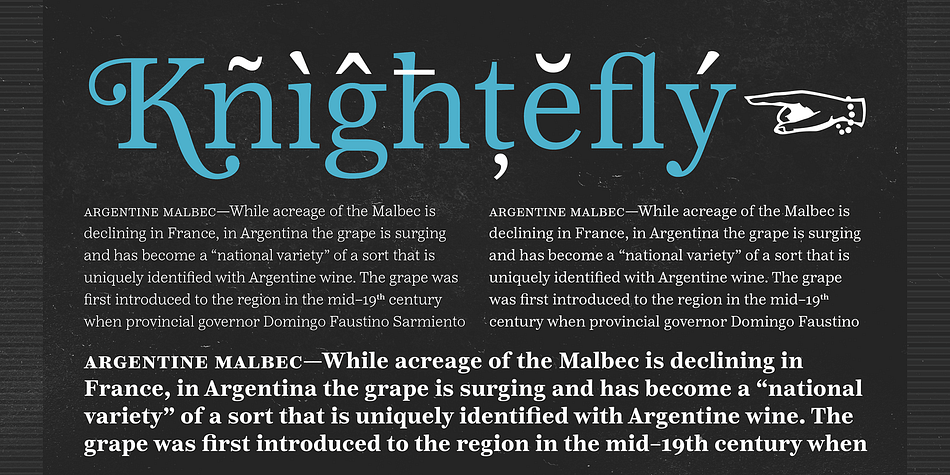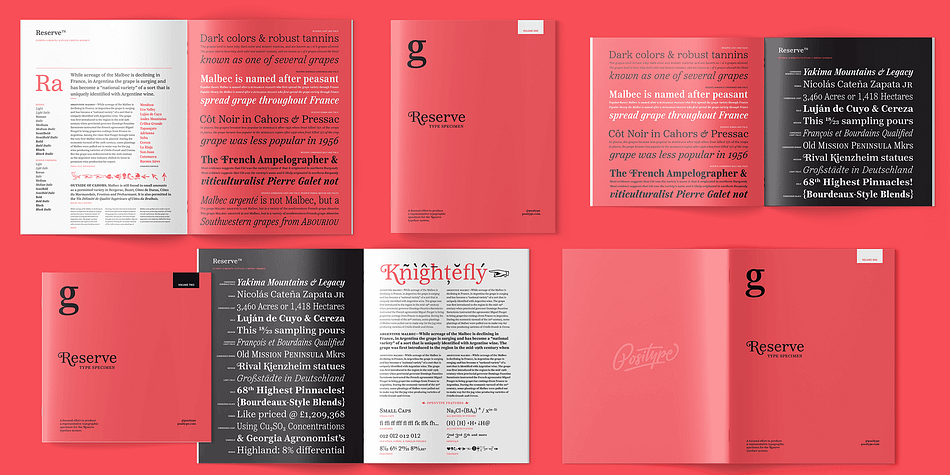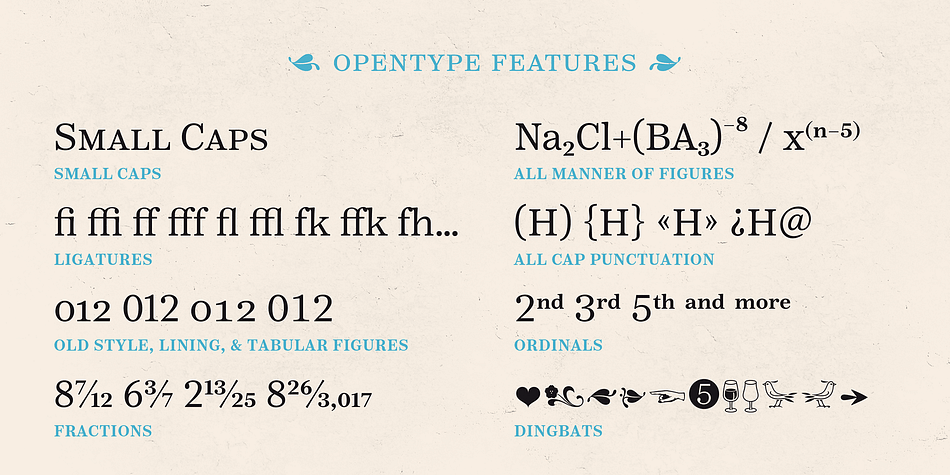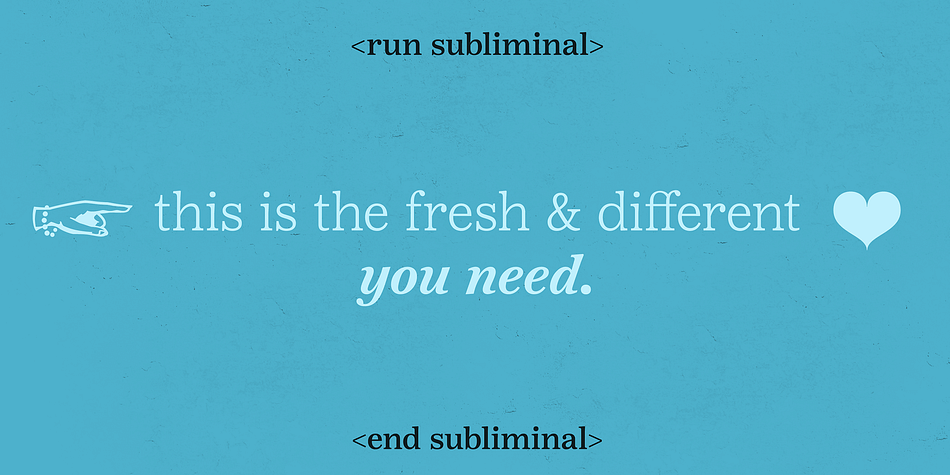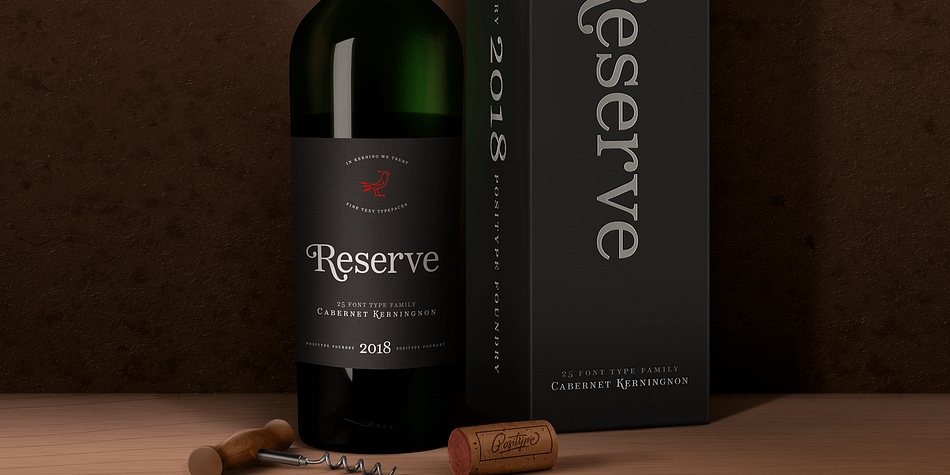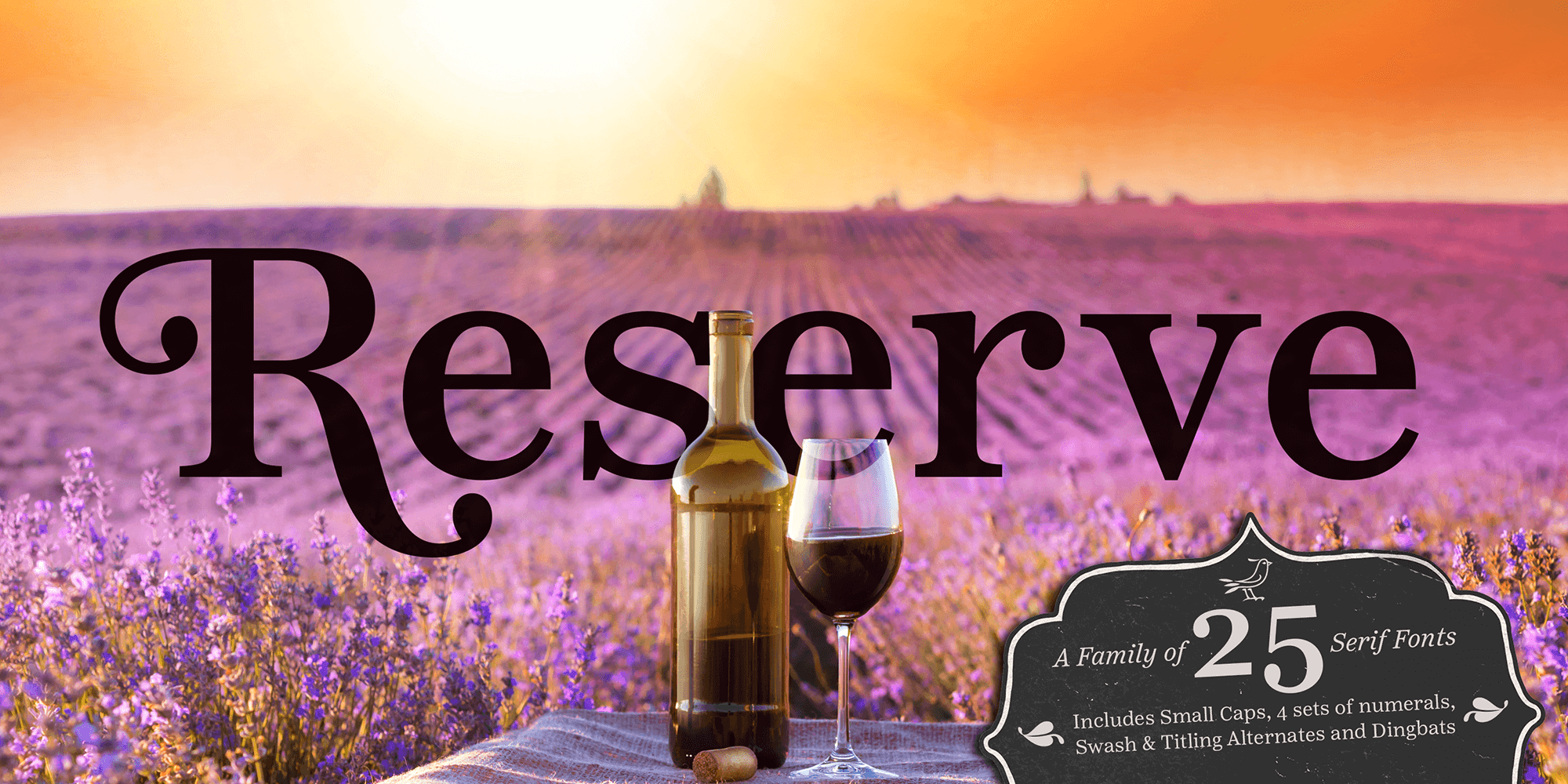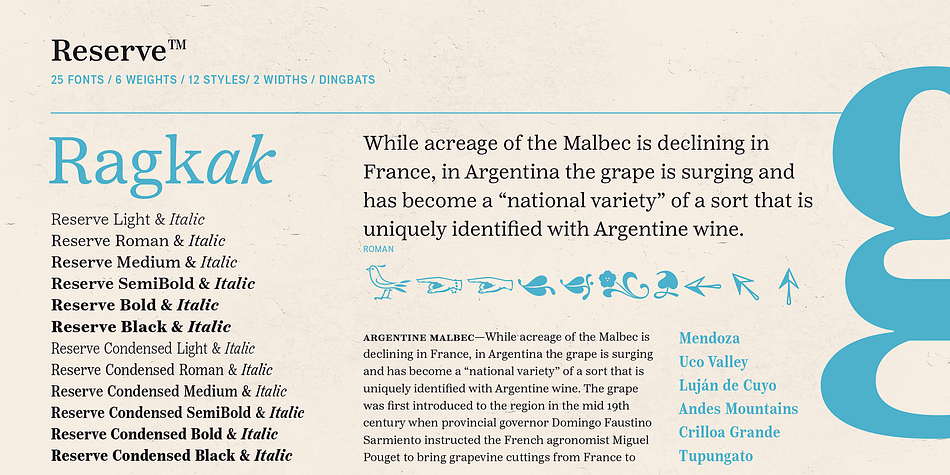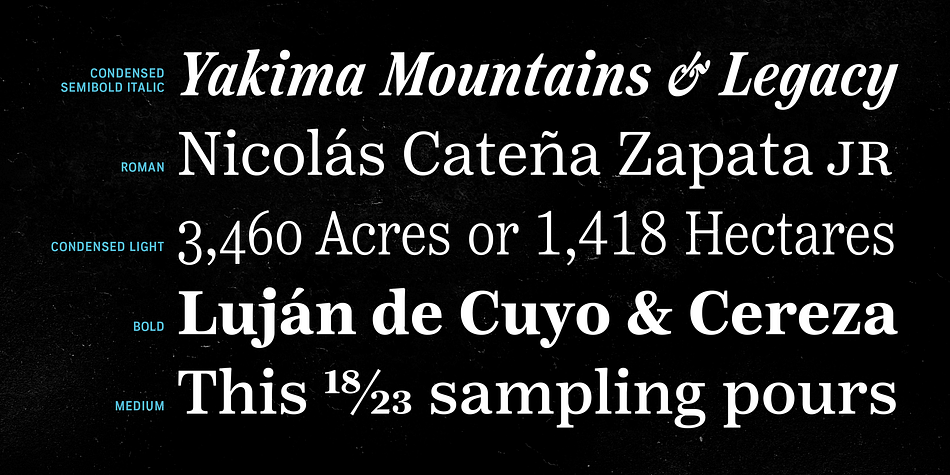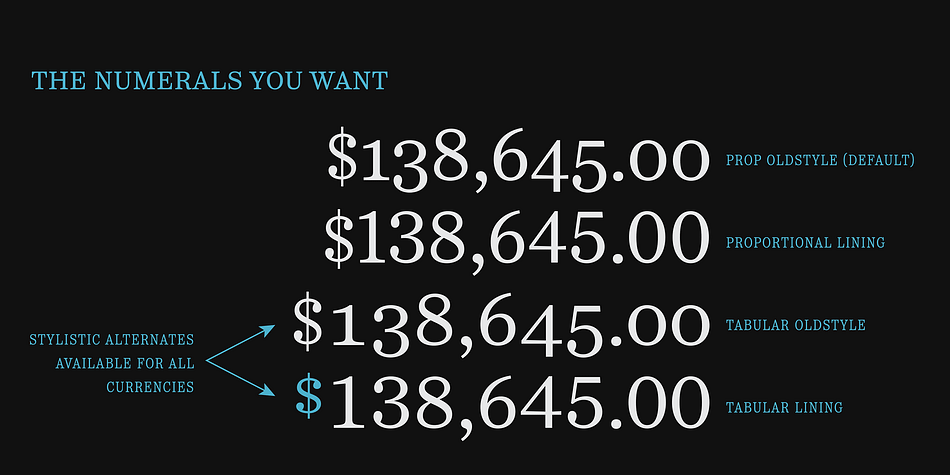
Designed by Neil Summerour, Reserve is a serif and dingbat font family. This typeface has twenty-five styles and was published by Positype.
First and foremost, Reserve is a companion typeface developed to complement the Scotch Suite of typefaces.
With a focus on producing simpler forms with less contrast, Reserve evolved into a fantastic serif typeface for long-form text settings, exceptional clarity at low resolutions—for print and screen. Friendly and functional, Reserve is replete with features intended to make you feel comfortable going back to again and again, and with a complete set of condensed fonts, this typeface becomes more of a surprise.
Small Caps, 4 sets of numerals, Case-Sensitive forms, Stylistic, Swash and Titling Alternates, Fractions, language support, and more… it’s all there, ready for you to use. The term ‘Reserve’ as it applies to the words of wine and spirits is typically used to alert a consumer of a higher quality, exceptional vintage, or special production of wine or whisky… it’s no different for this typeface’s name. Cheers.